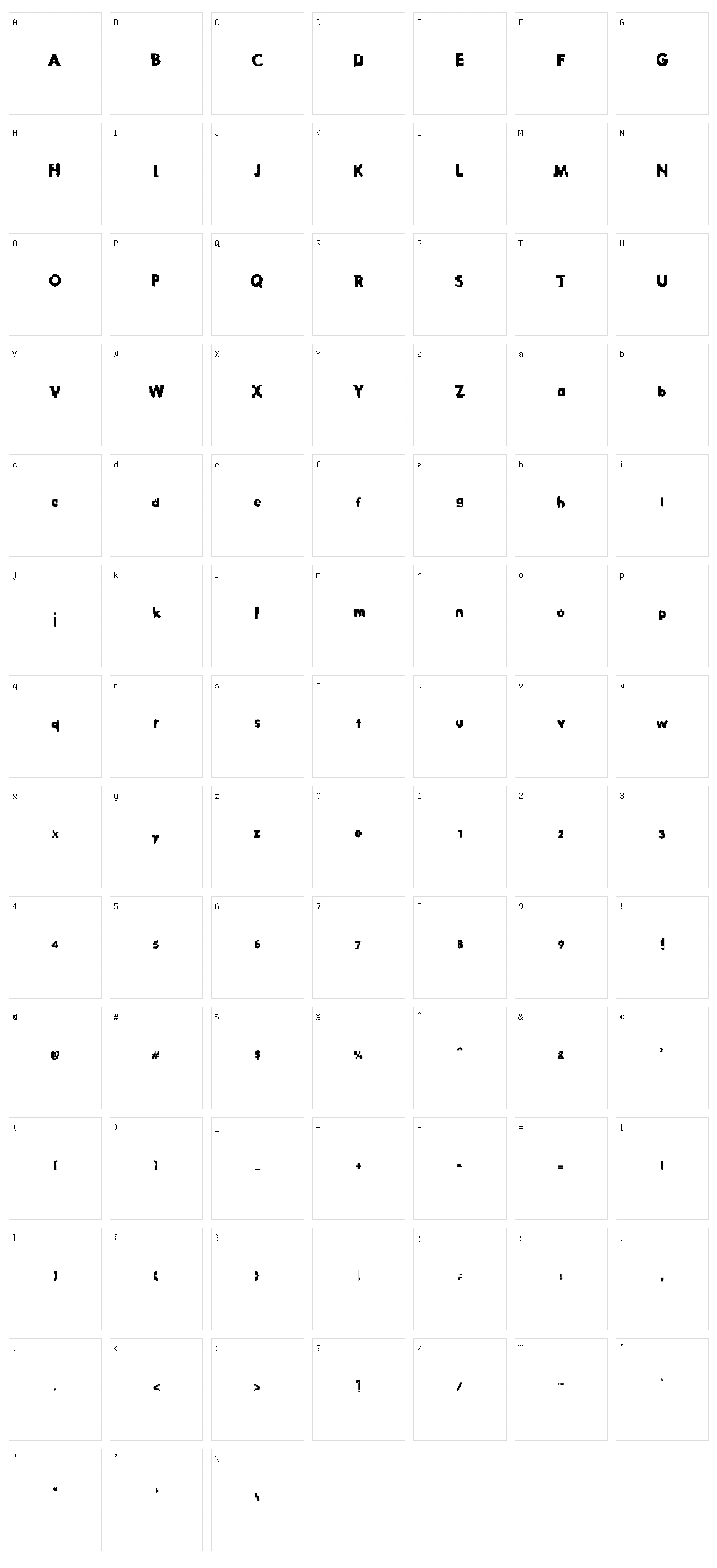
Pixel Noise
Designed by: The Space Wanderer
By Eric Wiryanata. Januari-2007.
this font named PIXEL NOISE version 01
Note#2: This typeface is ideal for logos and general design.
It isn't very suitable to be used with word-processors as it lacks some symbols and letters.